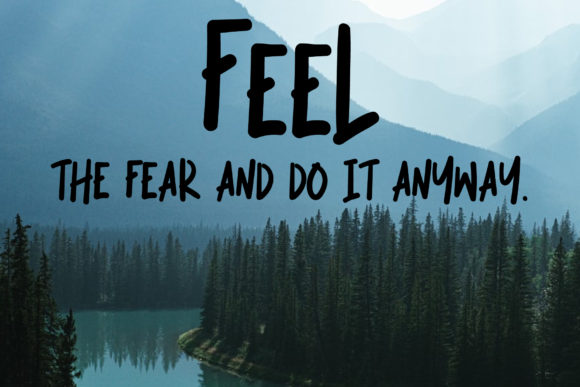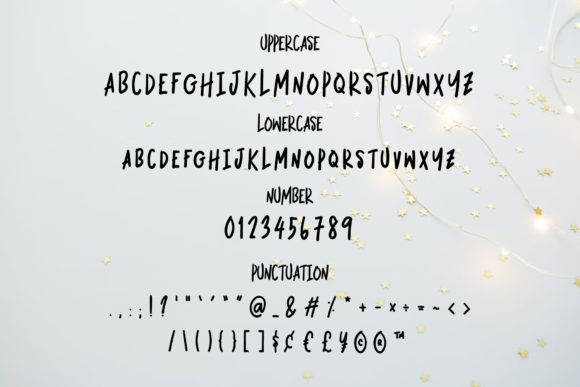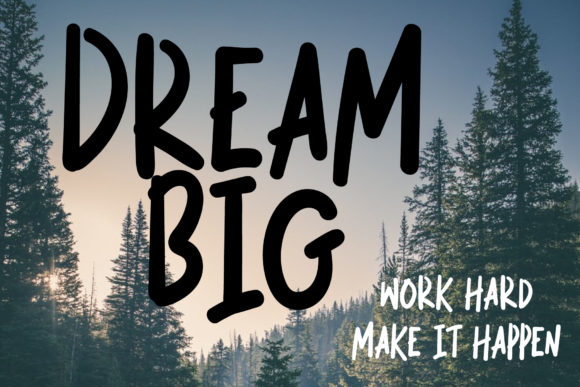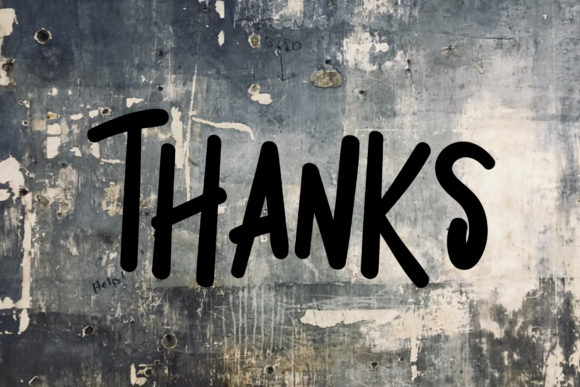
Begin Again Font
About Begin Again Font
Begin Again is a casual and unique handwritten font. Whether you’re using it for crafting, digital designing, presentations or greeting cards making, it’s perfect!